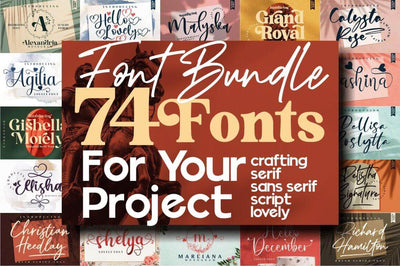
Get this huge typographic bundle from Letterena Studios featuring an amazing collection of 74 unique fons! Tons of different design styles are included — from crafting, display, script, serif, brush, signature and sans-serif. Additional weights and OpenType features round out an already amazing collection. So what are you waiting for, jump on this deal now and save 99% off the regular price!
• • 74 professional fonts.
• • Various font styles
• • Tons of OpenType features – stylistic alternates, swashes, ligatures, punctuation, symbols and more.
• • Suitable for logos, crafting, invitation cards, apparel, headlines, business cards, inspirational quotes, tshirt, posters, wedding design, packaging and a lot more!